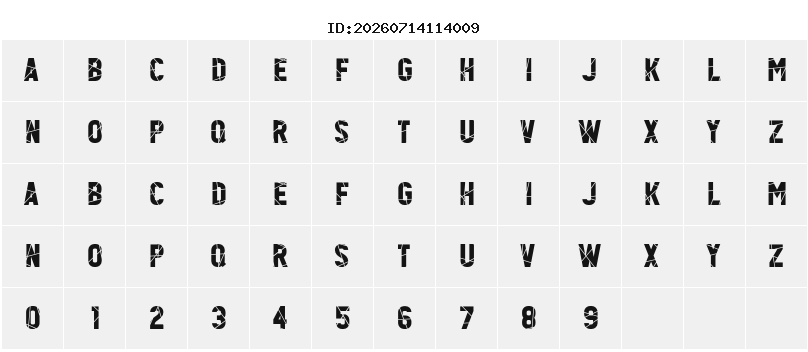
Heisenberg Preview
• Font Name: Heisenberg
• Designer: Manuel Fleig
About Heisenberg.otf
Heisenberg.otf is a modern, elegant sans-serif font designed for ultimate readability and visual harmony. Perfect for branding, headlines, web design, and print materials.